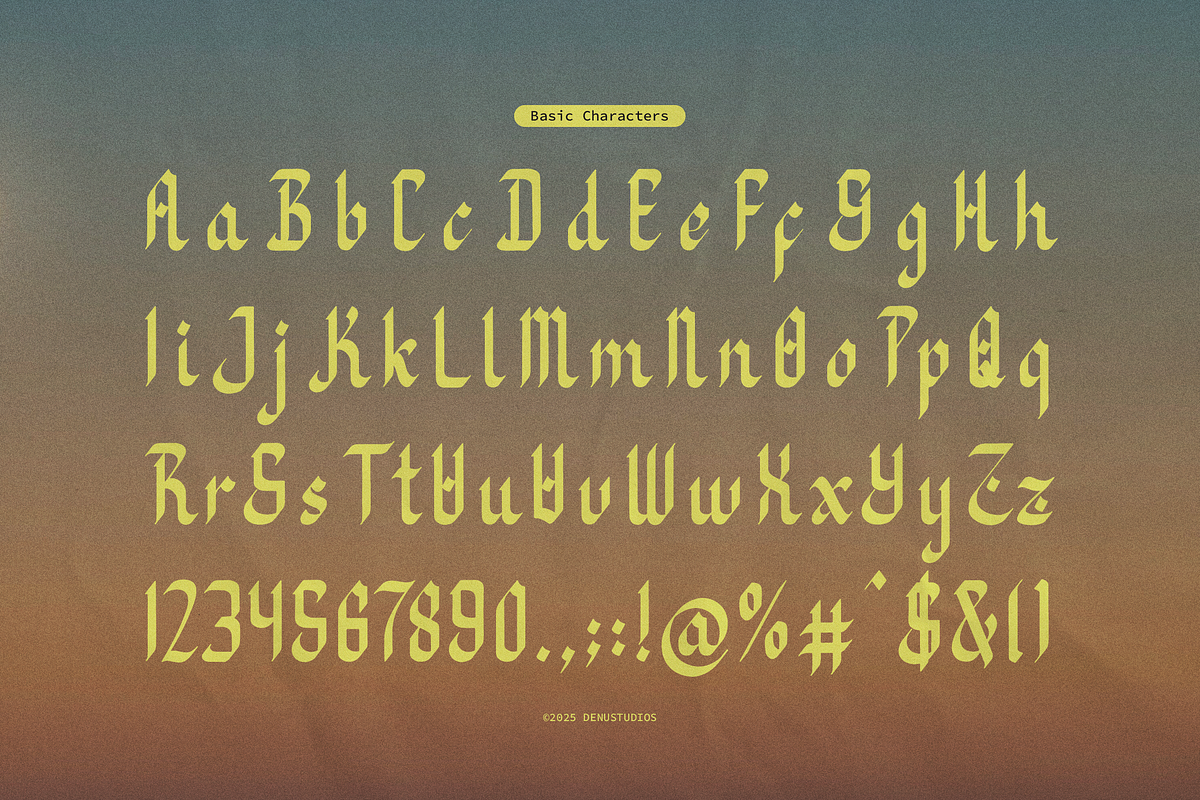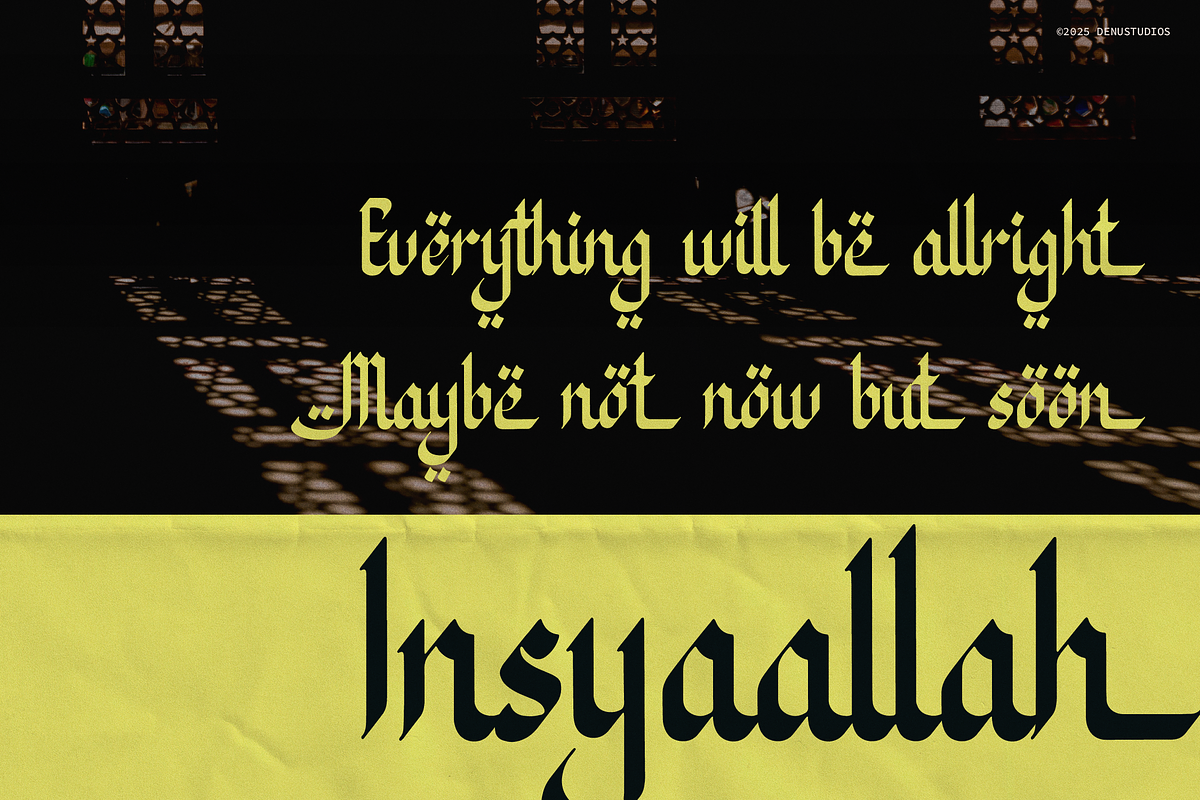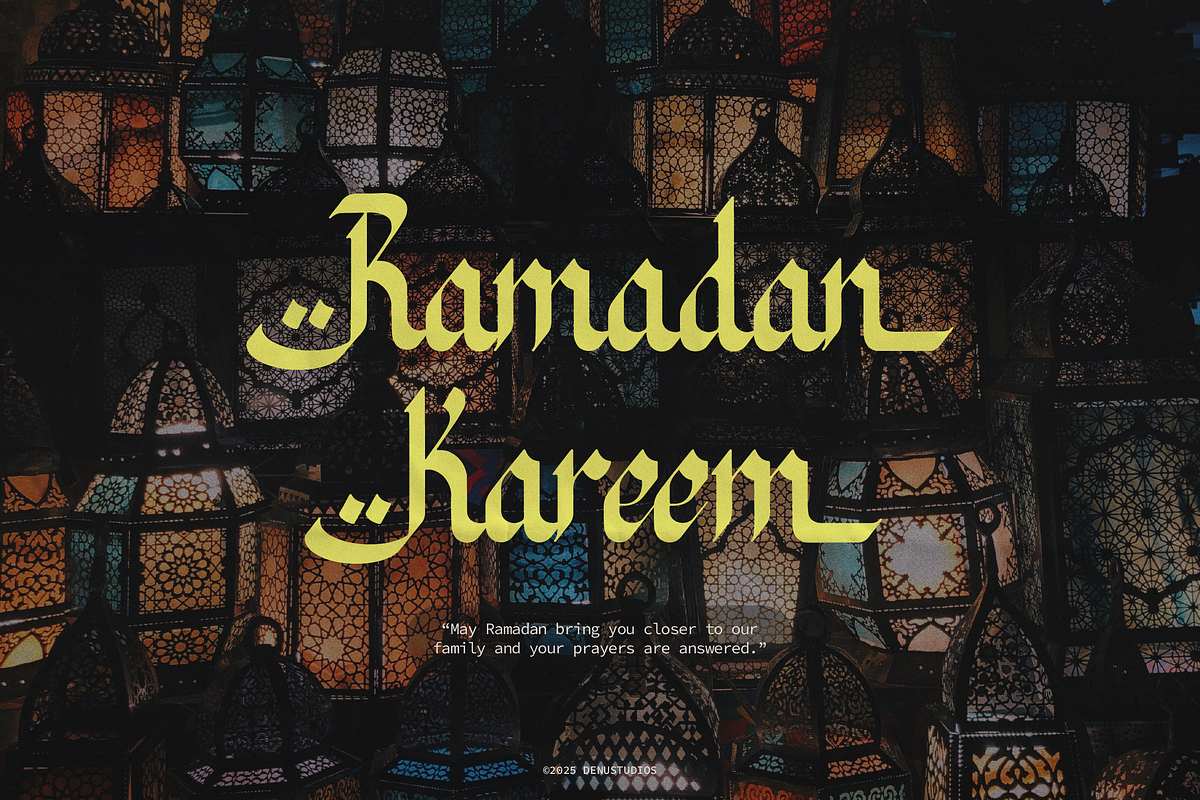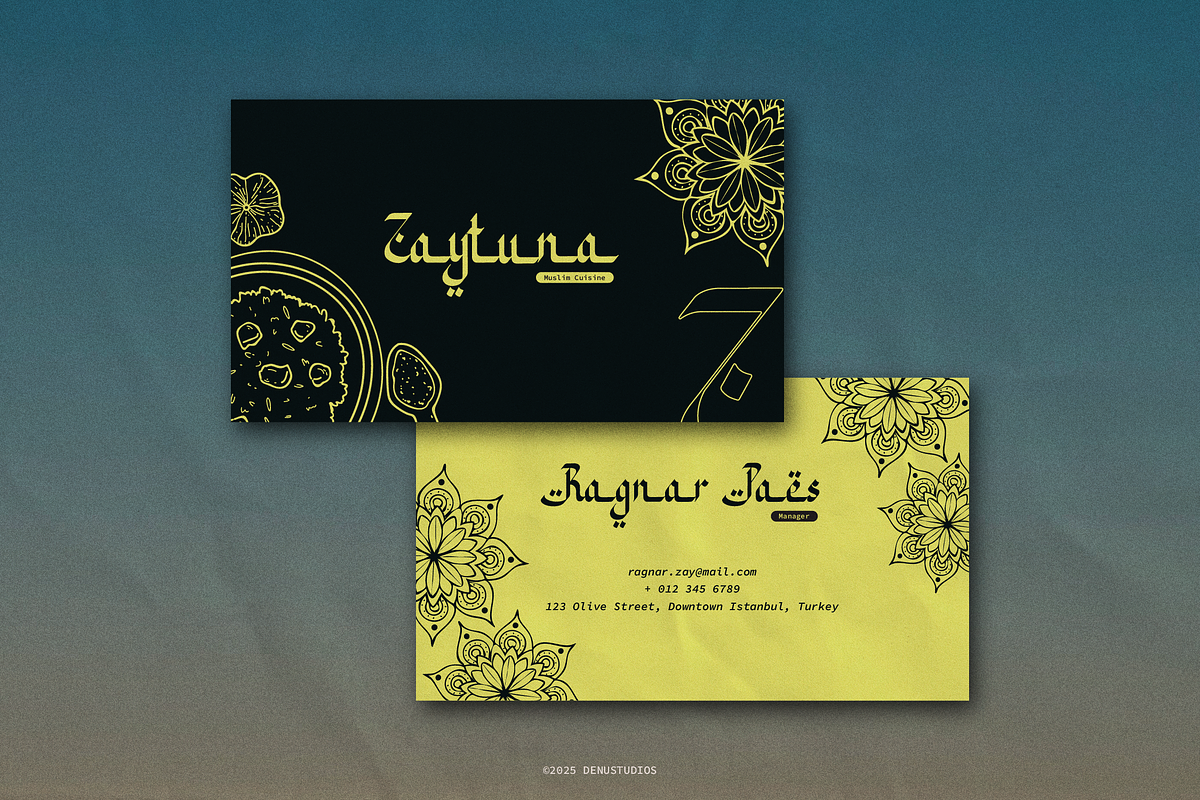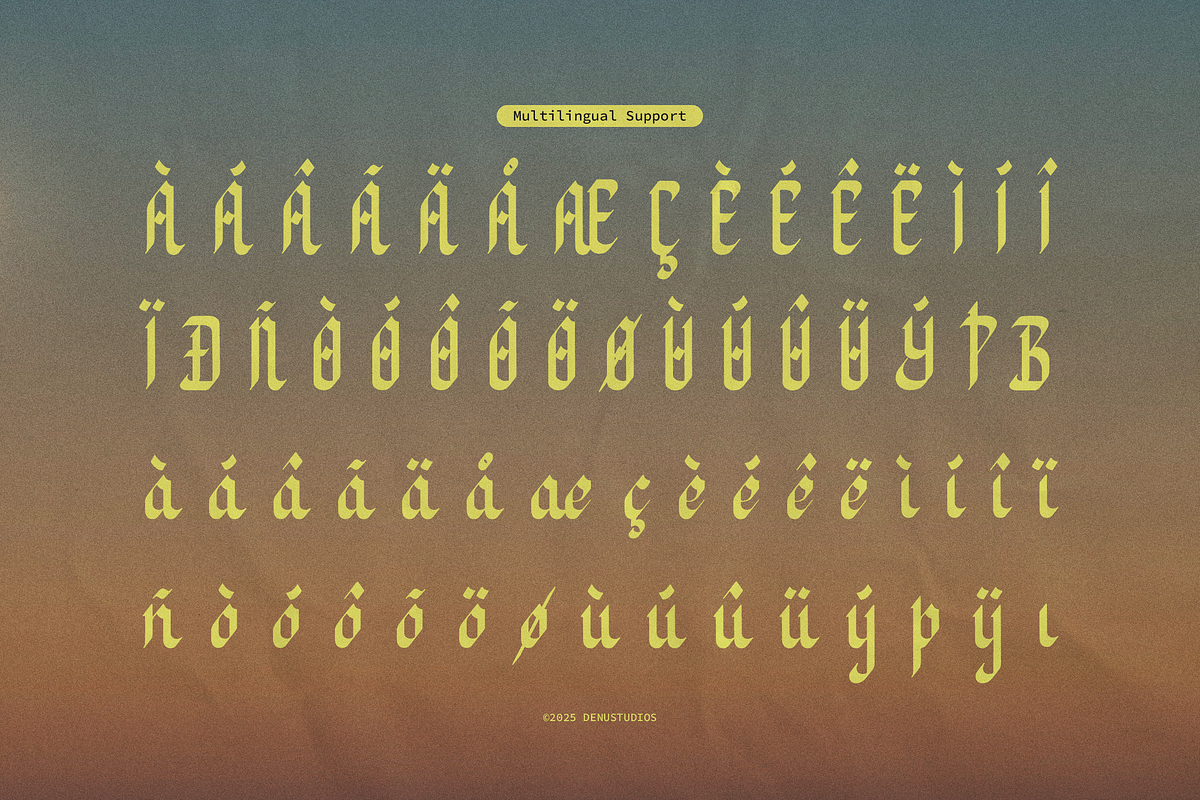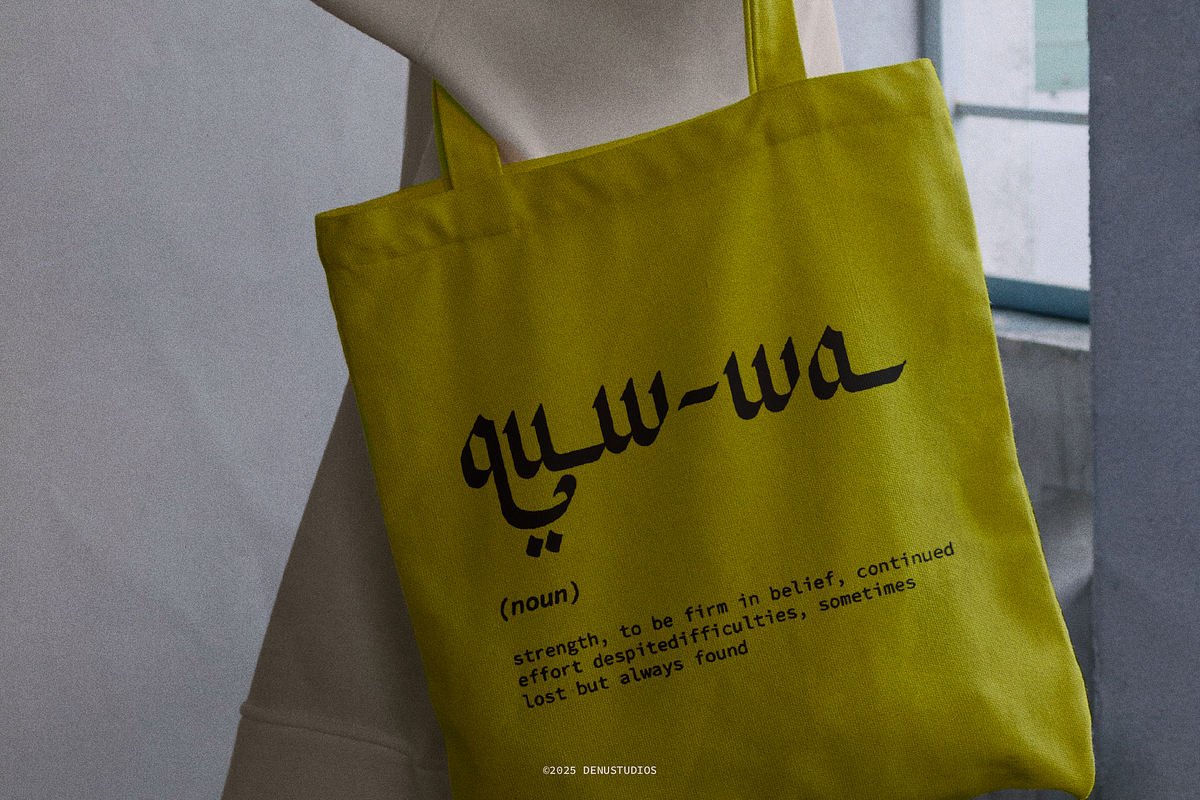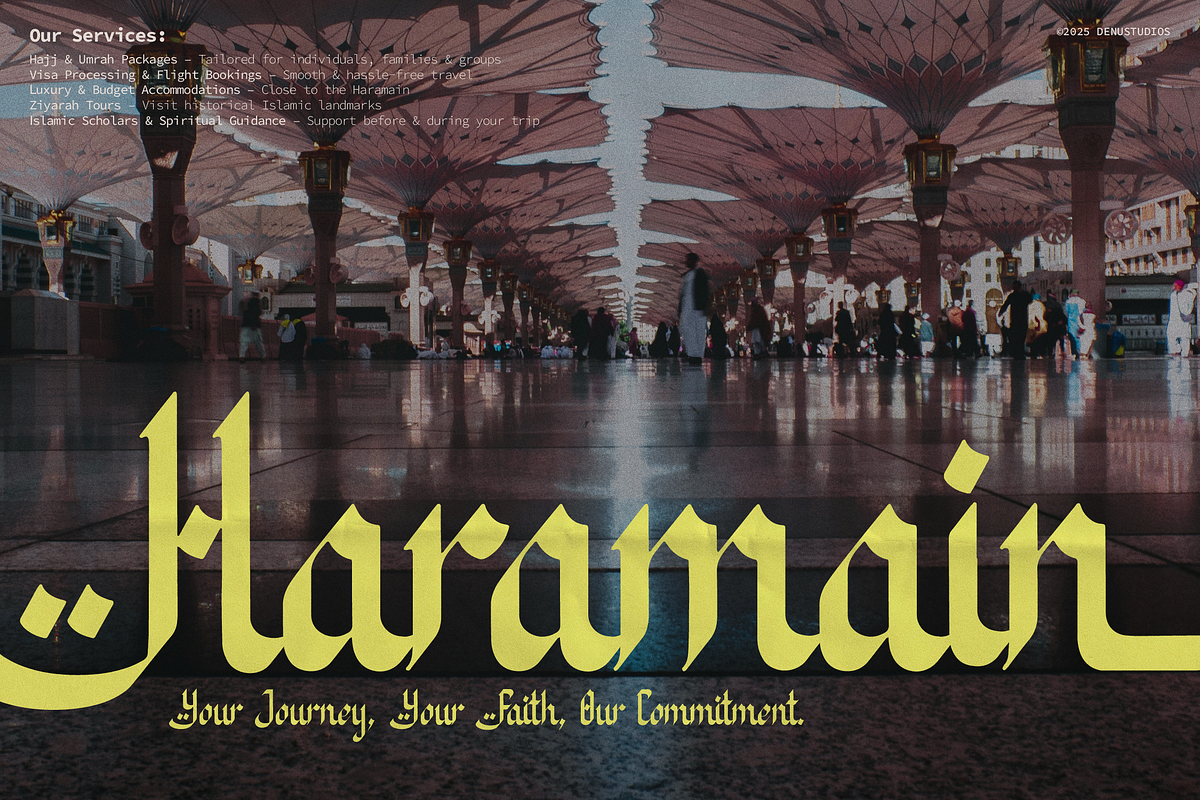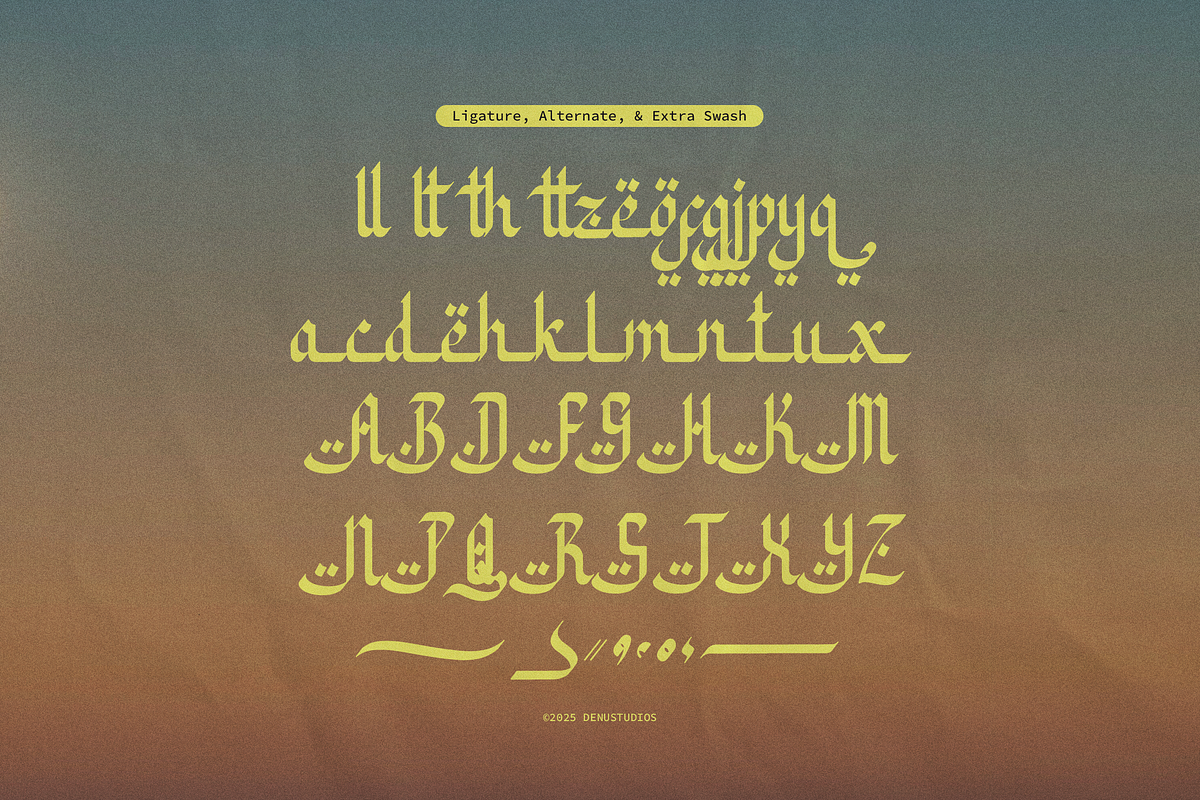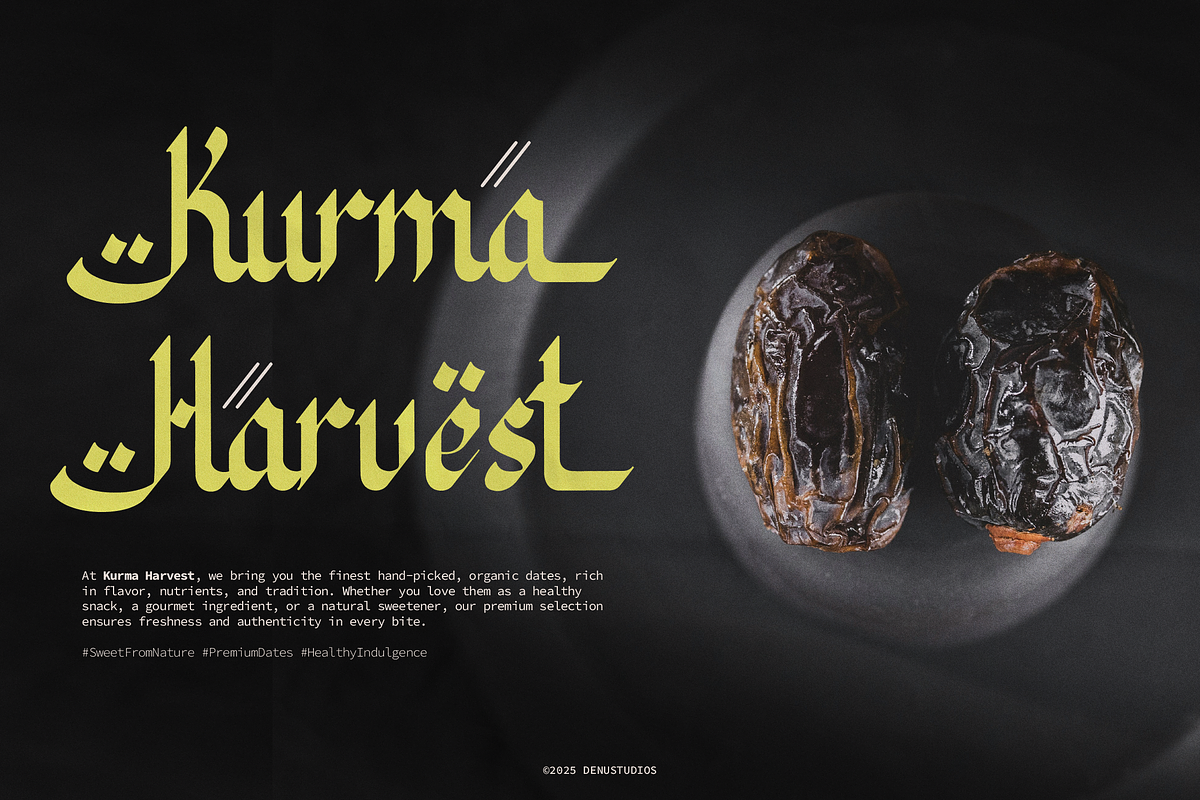
Al Laylie | Islamic Style Font
Al Laylie | Islamic Style Font, from Denustudios, suitable for any projects such as: logos, branding projects, homeware designs, product packaging, mugs, quotes, posters, shopping bags, t-shirts, book covers, name card, invitation cards, greeting cards, label, photography, watermark, special events, and all your other lovely projects that need a Islamic Style Font taste.